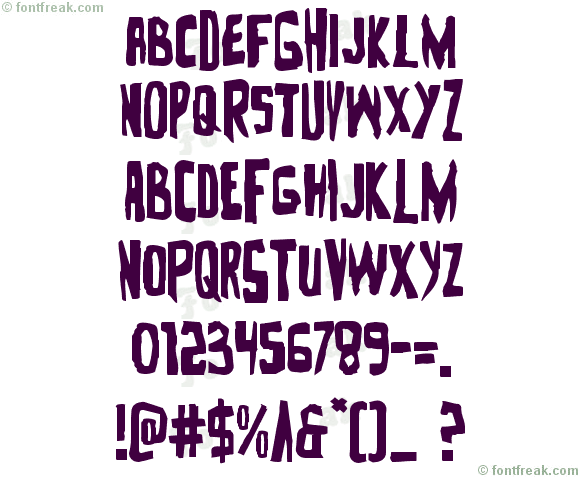
Zakenstein Leftalic
Zakenstein Leftalic, designed by Daniel Zadorozny in 2011, is a distinctive display font that stands out in the realm of creative typography. This font falls under the category of decorative fonts, characterized by its unique rotalic style that combines italic and 3D elements, creating a dynamic visual presence. The strokes are bold and expressive, featuring a consistent weight that makes the letters both eye-catching and legible. The space between characters is carefully balanced, enhancing readability while maintaining a playful aesthetic.
Zakenstein Leftalic is particularly well-suited for a variety of creative applications. It makes an excellent choice for movie posters, where its dramatic flair can capture attention and convey the essence of the film. Additionally, this font is ideal for graphic designs aimed at small businesses, such as restaurant menus or promotional materials, injecting a sense of personality and style. It can also be a fantastic option for event flyers or invitations, where its unique character adds a touch of whimsy and excitement.
What truly sets the Zakenstein Leftalic font apart is its ability to blend playfulness and professionalism. Its bold design and striking silhouette make it a versatile choice that can elevate any project, ensuring that your text not only communicates but also captivates. Don't miss out on the opportunity to enhance your designs with the Zakenstein Leftalic font free download.